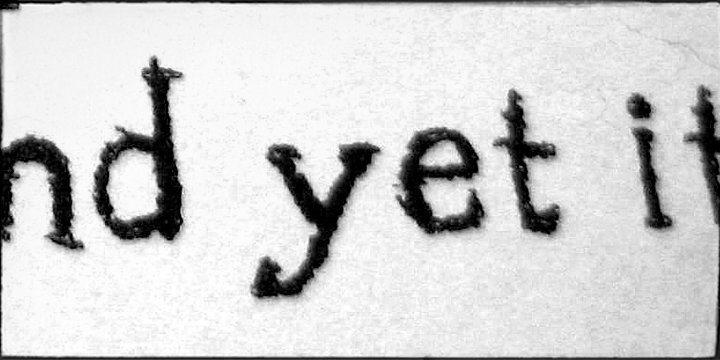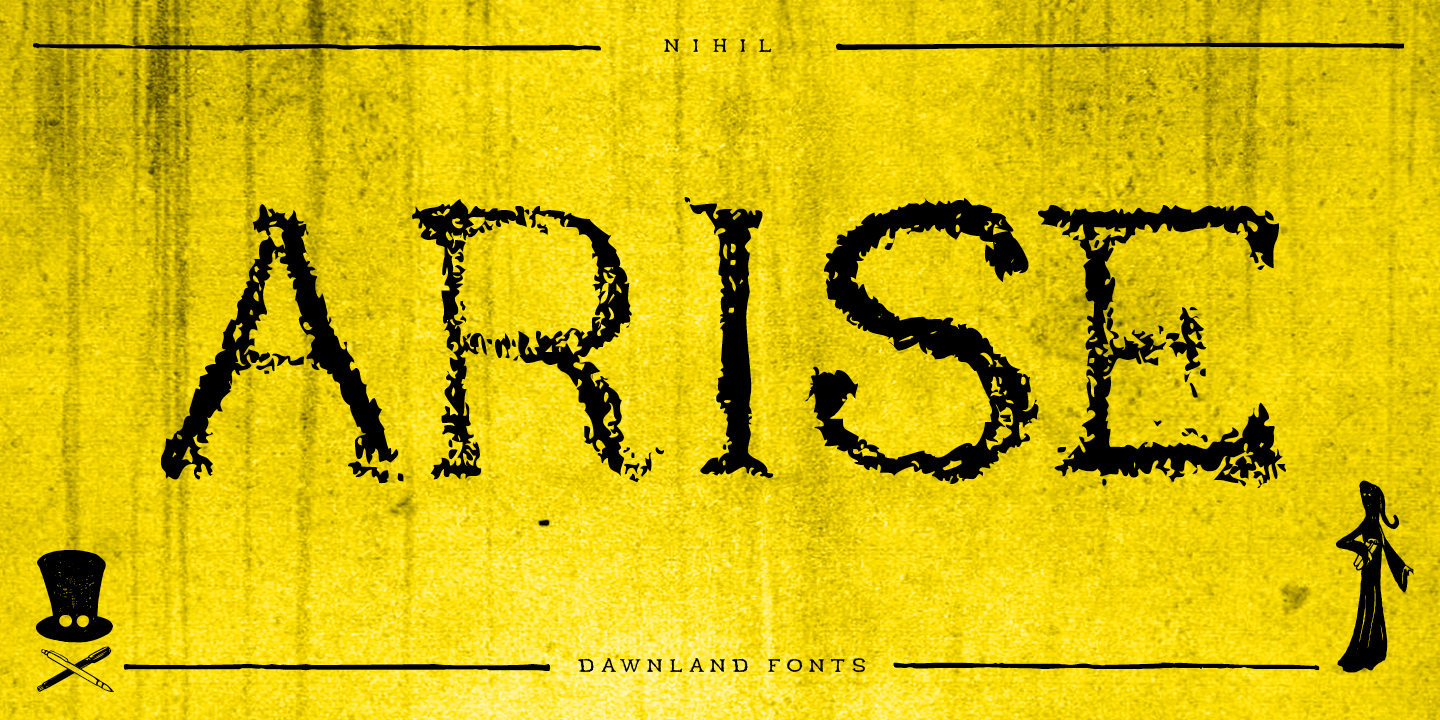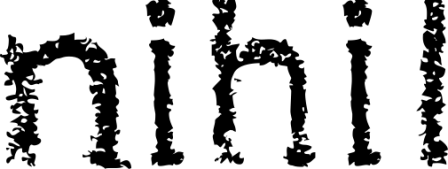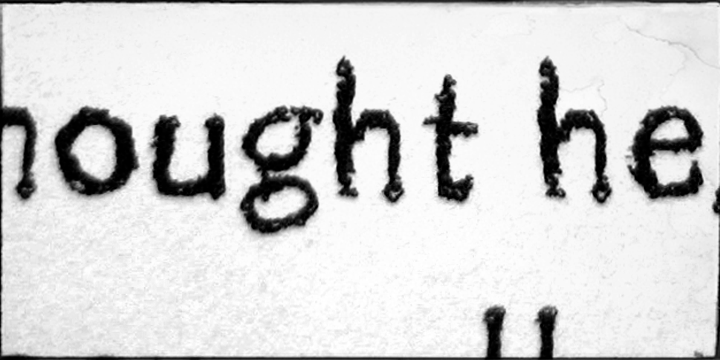
nihil is a grunge font published by Dawnland.
Inspired by classic serif fonts such as (adobe) Garamond, this pencil drawn typeface give your designs a unique and elegant, yet distressed look.